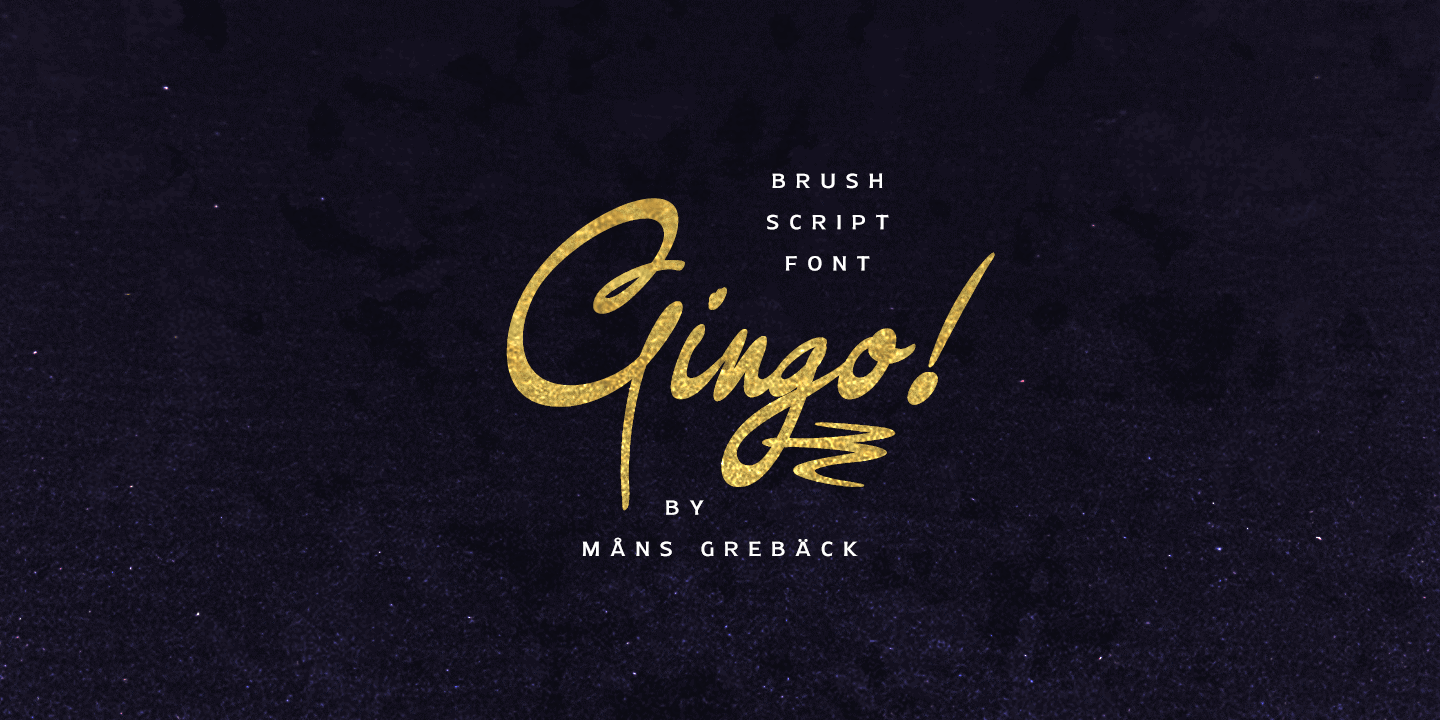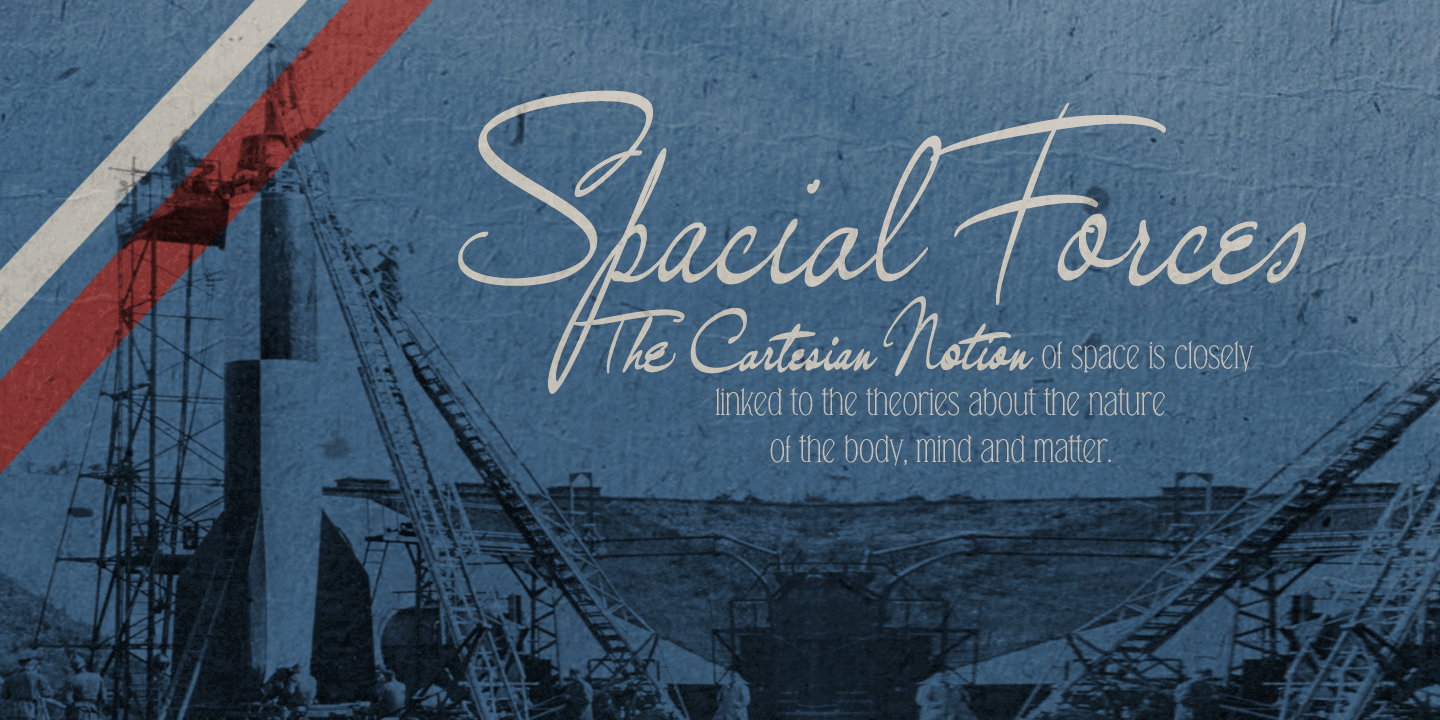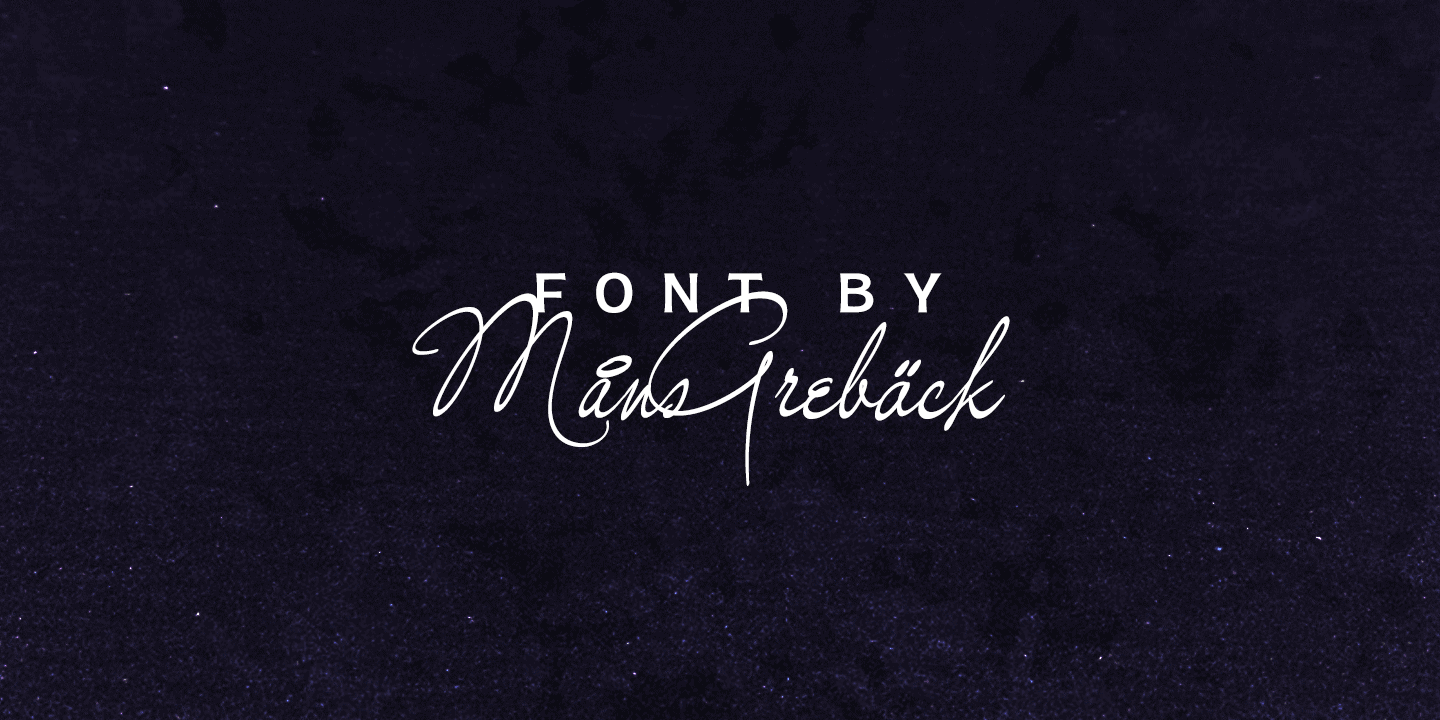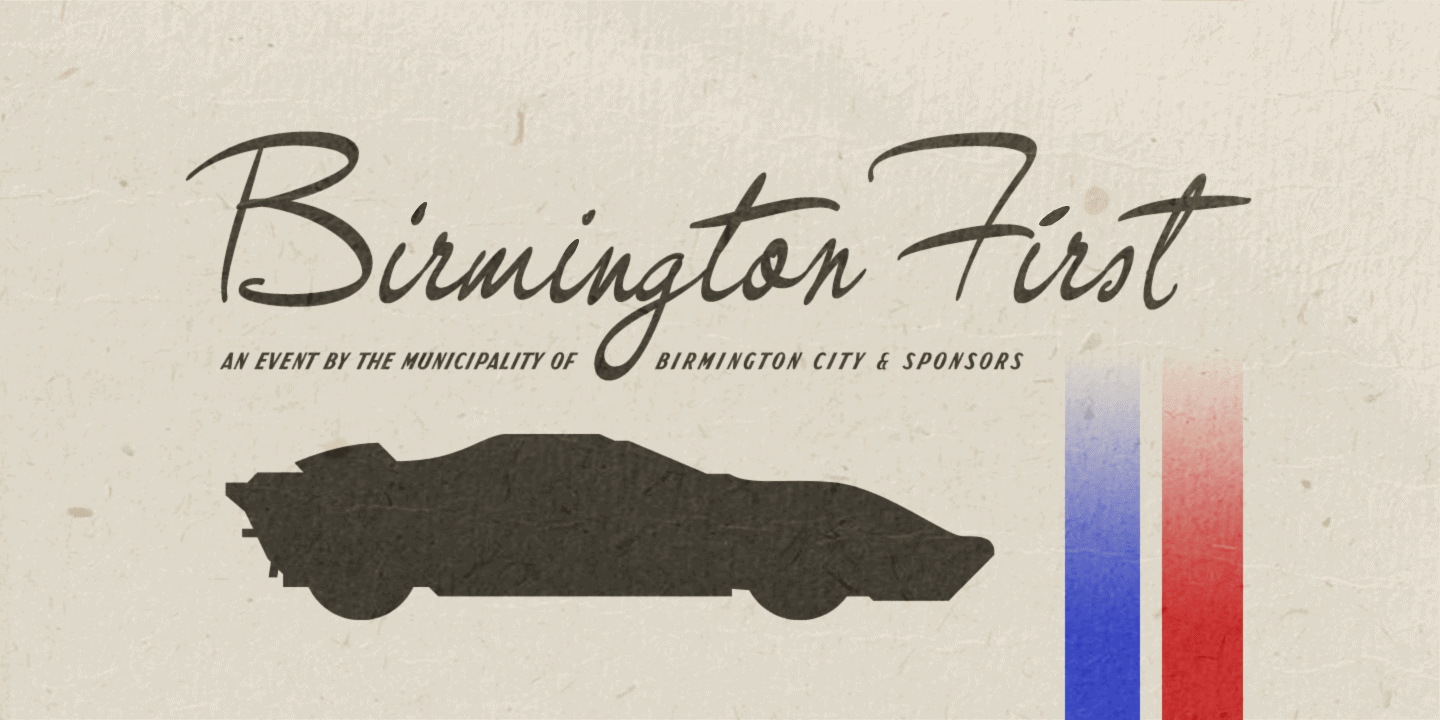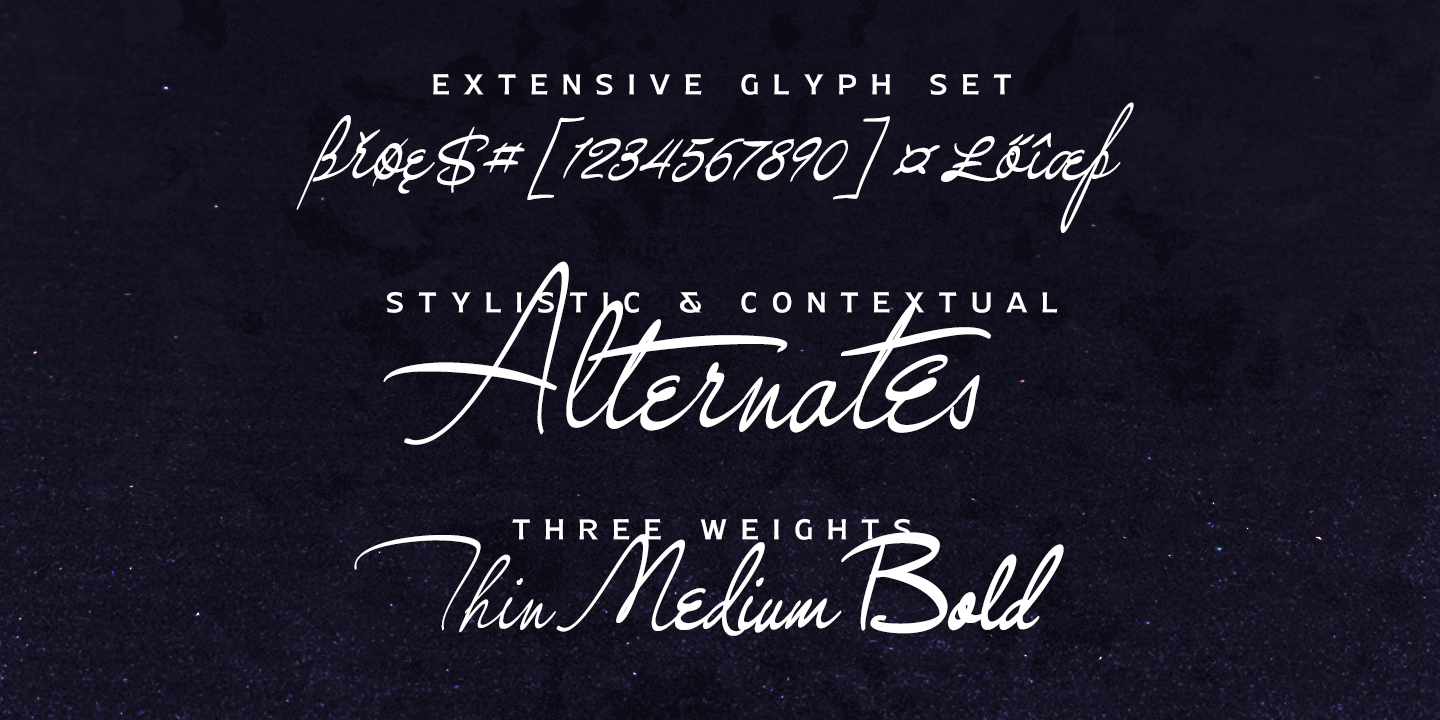
Gingo
Gingo Poster01
Gingo Flag
Gingo Poster02
Gingo Poster03
Gingo Poster04
Gingo Poster05
Gingo is a wild brush script. Its thick strokes are inspired by mid-century advertising, is full of spirit and progressiveness. The handwritten family consists of three weights: Gingo Thin, Gingo Medium and Gingo Bold. Its multiple alternate alphabets gives the font a true handwritten feeling. The font contains all characters you’ll ever need, including all punctuation and numbers. It has an extensive lingual support, covering all European Latin-based scripts.